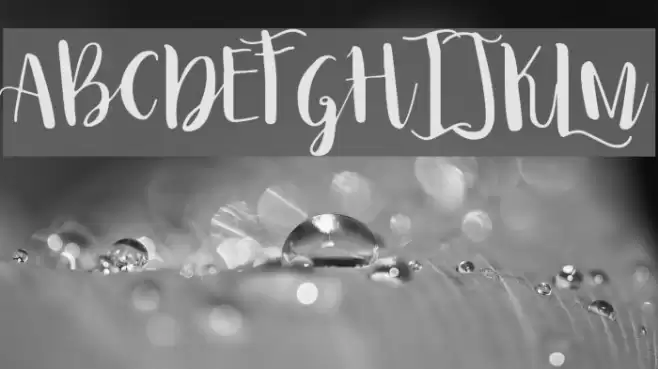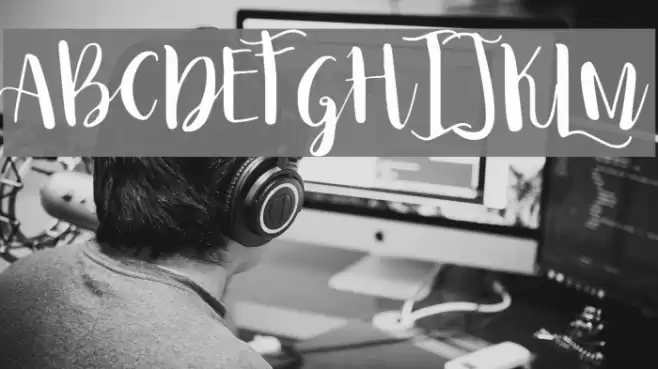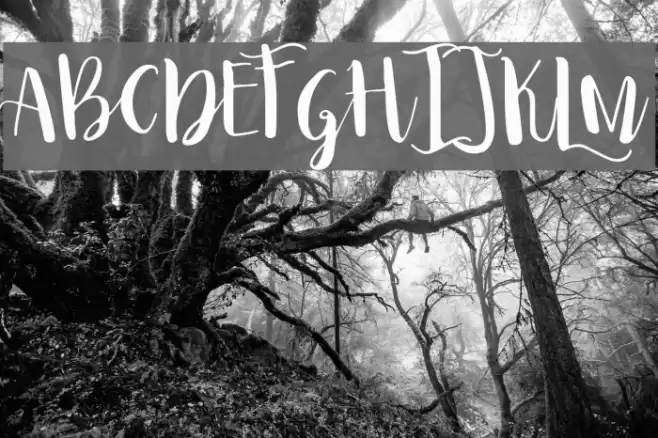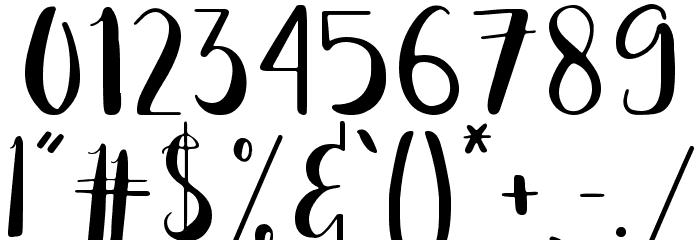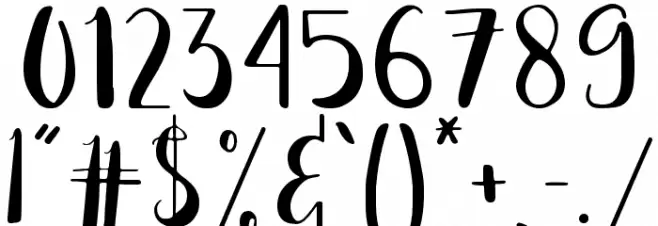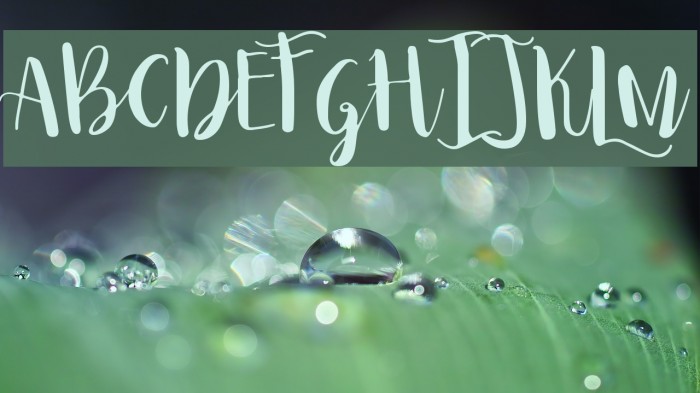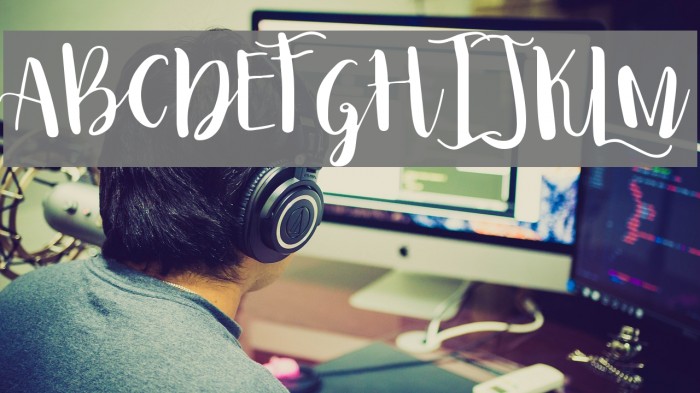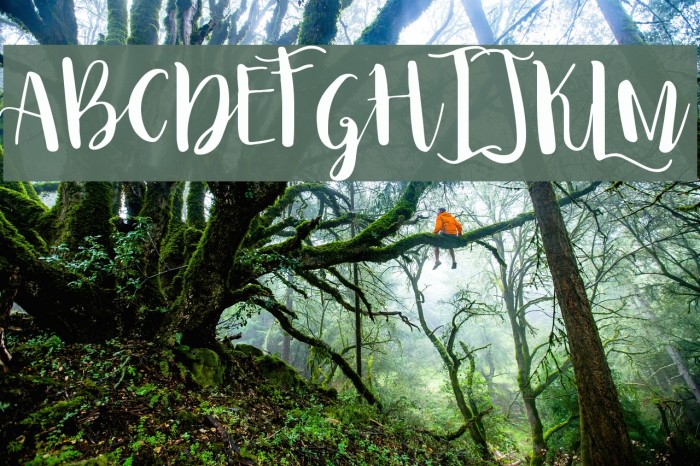
Princess Ivy Font
Princess Ivy Description
This font features a whimsical and elegant script style, characterized by its flowing, cursive letters that exude a sense of playfulness and charm. The uppercase letters are bold and expressive, with dramatic flourishes and loops that give them a distinctive personality. The lowercase letters maintain a consistent flow, with smooth connections between each character, enhancing the font's cohesive look. Numbers are styled to match the playful nature of the letters, with a slight tilt and rounded edges. Special characters are thoughtfully designed to blend seamlessly with the rest of the font, ensuring versatility in various design contexts. The overall appearance is both artistic and approachable, making it suitable for creative projects that require a touch of elegance and fun.
A whimsical and elegant script font with flowing, cursive letters and playful flourishes from Script fonts.
- Proposed Projects: Ideal for wedding invitations, greeting cards, branding projects, and any design that requires a touch of elegance and creativity.
- Use Case: Logos, Invitations, Greeting Cards